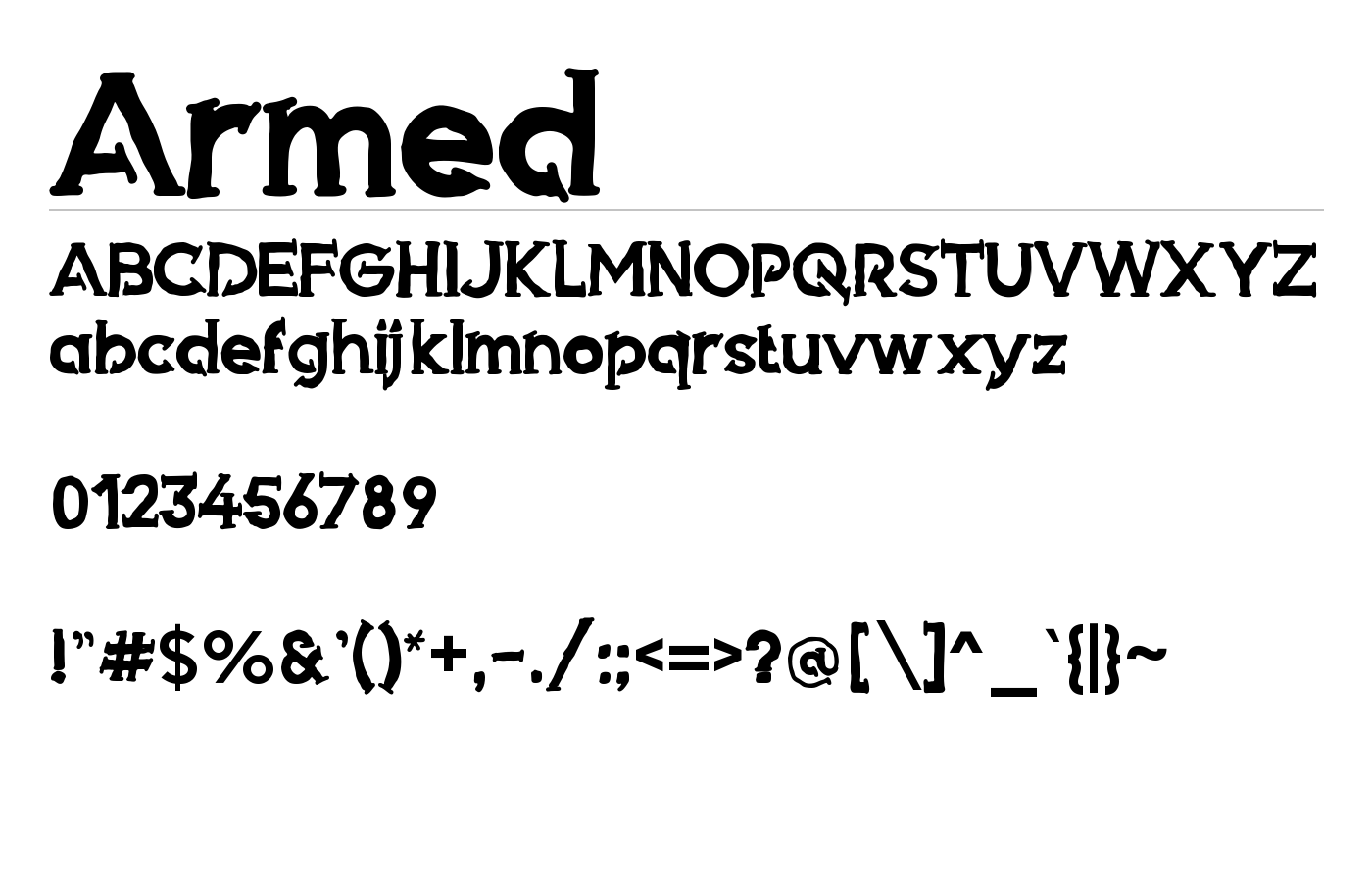
Armed is a bold, serif font with a rugged, hand-crafted feel that combines slightly irregular strokes and sturdy shapes, giving it a strong, vintage personality. Its medium contrast and distinctive serifs create a slightly rough yet approachable style, making it ideal for designs needing a bold, expressive character with a touch of rustic charm. This font works well in posters, logos, and branding projects seeking a unique, confident look with a handcrafted edge.
Armed Font